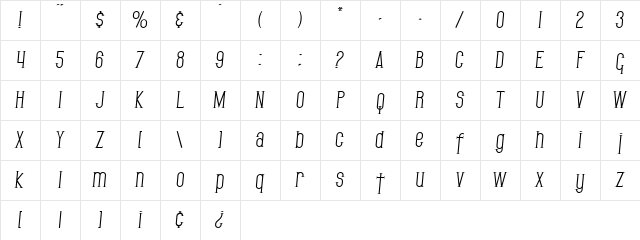
SF Gothican Italic Free Font
SF Gothican Italic
Design Context for SF Gothican
SF Gothican takes a clean, functional approach - its unadorned letterforms prioritise legibility and work reliably across screen and print environments. The slanted form adds forward momentum and visual energy.
Font Pairing: Works well alongside a characterful serif or display font that can carry the expressive load while SF Gothican handles the functional copy.
Pro Tip: Use SF Gothican for UI labels, navigation, and short-form body copy where clean legibility is the priority.